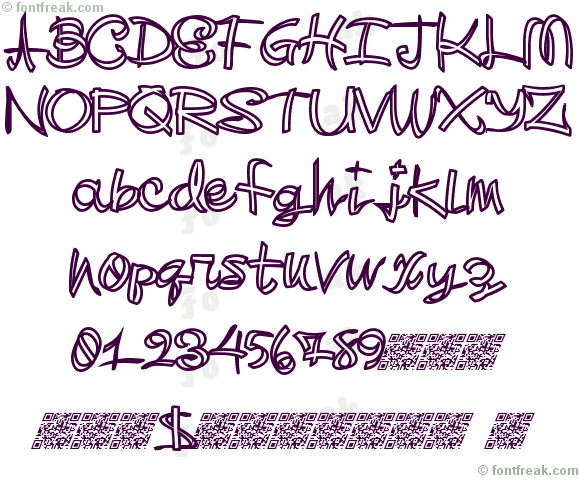
MadSkilz
About MadSkilz
MadSkilz by Xerographer Fonts is a unique display font that embodies a playful yet artistic flair, making it an excellent choice for a variety of design projects. With its handwritten style, this font features irregular strokes and whimsical curves, giving it an authentic, personal touch. The stroke weight varies throughout the characters, creating a dynamic contrast that adds visual interest and energy to any text. The spacing is generous, allowing for easy readability while maintaining a fun aesthetic.
This font is particularly well-suited for creative applications, including promotional materials for art festivals, vibrant restaurant menus, and eye-catching movie posters. Its playful demeanor can also enhance the design of children's book covers or birthday invitations, making it a versatile option for both professional and personal projects. Small business owners and content creators will find the MadSkilz font free download an invaluable asset, allowing them to elevate their branding with a unique typographic style that resonates with their audience.
Graphic designers seeking to add a touch of creativity to their work will appreciate the font's distinctive character and its ability to convey a sense of fun and individuality. The MadSkilz font stands out in a crowded marketplace due to its blend of artistry and accessibility, providing a fresh alternative to more conventional fonts. By incorporating this font into your designs, you can ensure that your projects not only capture attention but also communicate a sense of personality and warmth. With MadSkilz, your designs are sure to leave a lasting impression, making it an essential addition to any designer's toolkit.